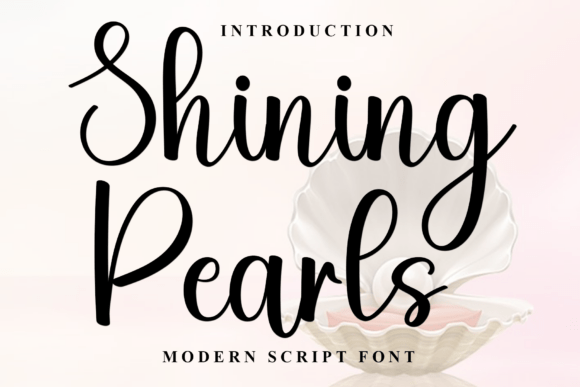
Introducing Shining Pearls Font: The Ultimate Holiday Typeface
The holiday season is upon us, and what better way to get into the spirit than with a festive and merry typeface? Look no further than Shining Pearls Font, a decorative and whimsical font that captures the essence of the holiday season. With its enchanting elements and nostalgic ambiance, this font is perfect for adding a touch of magic to your designs.
What is Shining Pearls Font?
Shining Pearls Font is a unique and festive typeface that is specifically designed to bring a cheerful and nostalgic ambiance to your words. With its decorative elements and whimsical flair, this font is perfect for holiday-themed projects, greeting cards, gift tags, and more. Whether you’re a designer, a crafty DIY enthusiast, or a business owner looking for a special font to use during the holiday season, Shining Pearls Font is the perfect choice.
Key Features of Shining Pearls Font
So, what makes Shining Pearls Font so special? Here are just a few of its key features:
- Festive and Merry Design: Shining Pearls Font is designed to capture the spirit of the holiday season, with a festive and merry design that’s sure to put a smile on your face.
- Decorative Elements: This font features a range of decorative elements, including intricate patterns and swashes, that add a touch of enchantment to your designs.
- Whimsical Flair: With its whimsical flair, Shining Pearls Font is perfect for adding a playful and nostalgic touch to your words.
Uses for Shining Pearls Font
So, what can you use Shining Pearls Font for? The possibilities are endless! Here are just a few ideas to get you started:
- Greeting Cards: Add a touch of festive cheer to your holiday greeting cards with Shining Pearls Font.
- Gift Tags: Make your gift tags extra special with this beautiful and festive font.
- Holiday-Themed Projects: Whether you’re working on a holiday-themed website, social media campaign, or marketing project, Shining Pearls Font is the perfect choice.
- Stationery and Invitations: Add a touch of elegance and sophistication to your stationery and invitations with this beautiful font.
Why Choose Shining Pearls Font?
So, why should you choose Shining Pearls Font for your holiday designs? Here are just a few reasons:
- Unique and Festive Design: This font features a unique and festive design that’s sure to stand out from the crowd.
- High-Quality Design: This font is designed to high-quality standards, ensuring that it looks great in any design.
- Perfect for Holiday Season: Shining Pearls Font is specifically designed for the holiday season, making it the perfect choice for any holiday-themed project.
- Have Fun: Most importantly, have fun with Shining Pearls Font! This font is designed to bring a touch of festive cheer to your designs, so don’t be afraid to get creative and try new things.
In conclusion, Shining Pearls Font is a beautiful and festive typeface that’s perfect for adding a touch of holiday cheer to your designs. With its decorative elements, whimsical flair, and PUA encoding, this font is easy to use and sure to bring a smile to your face. Whether you’re a designer, a crafty DIY enthusiast, or a business owner looking for a special font to use during the holiday season, Shining Pearls Font is the perfect choice.